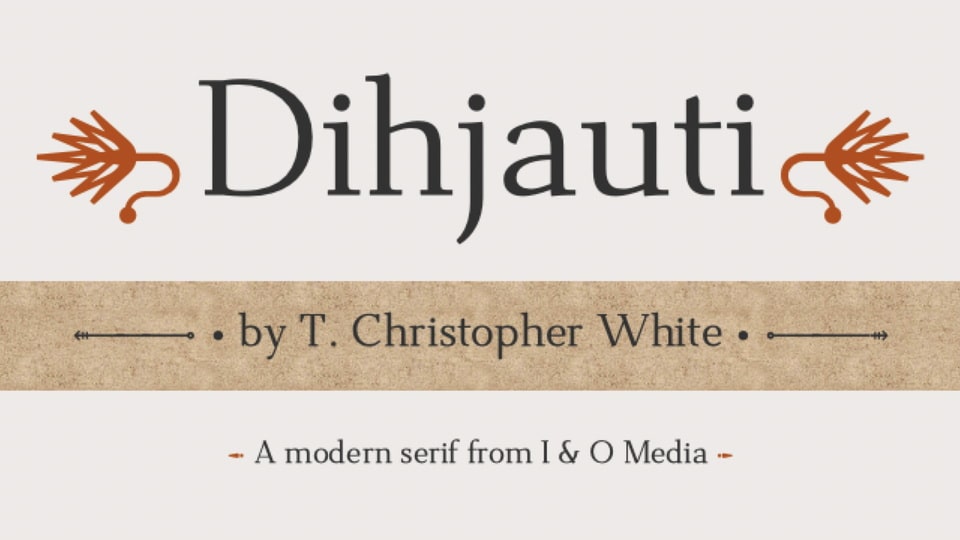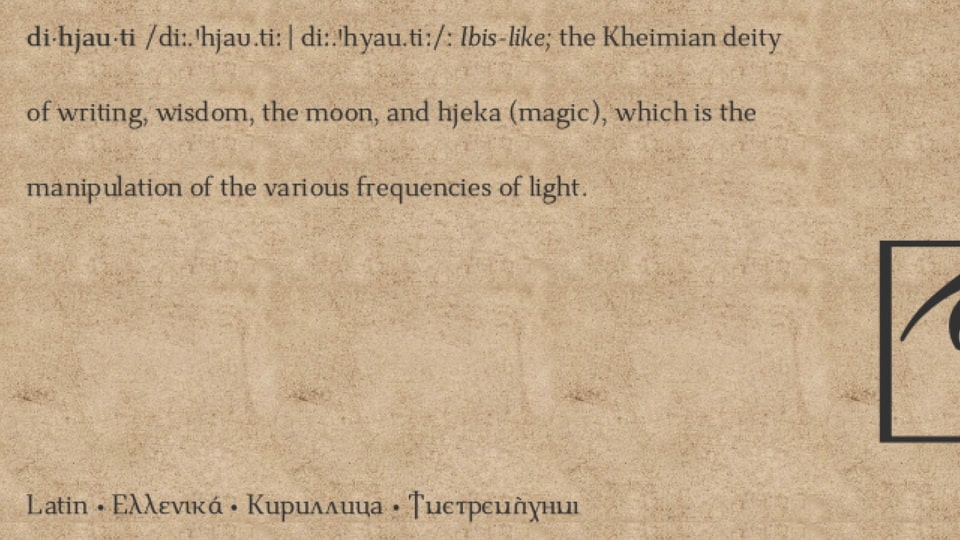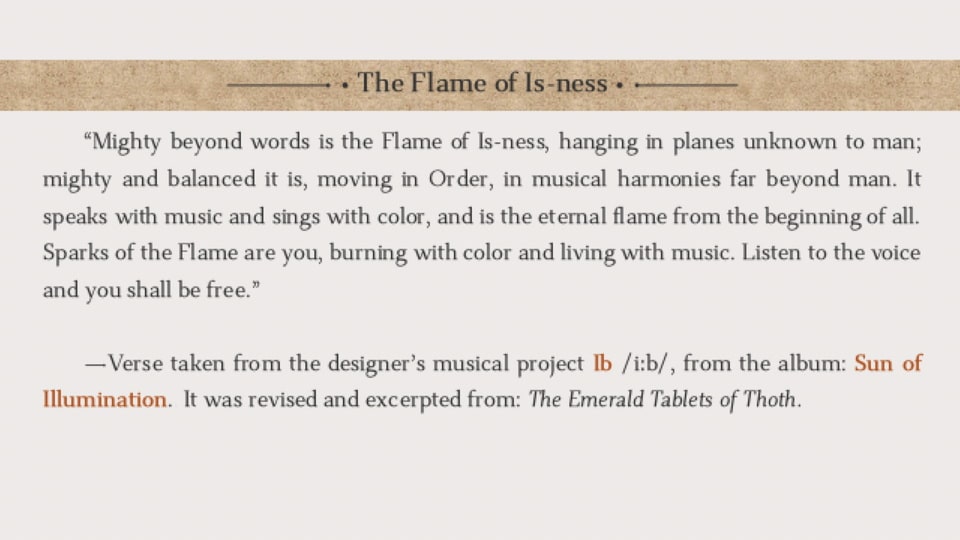
Dihjauti /di:.’hjau.ti: | dee.’hyow.tee/, is predominantly based off Dwiggin’s Electra with shades of Baskerville, Fairfield, and Perpetua. It is modern and stately, and like its inspirers, it has broad counters and spacing, which temper it and give it warmth, making it comfortable and well-suited for longer texts. It is balanced in all aspects, from its punctuation to its reference marks and symbols. Its design takes into consideration all extra characters for languages that few fonts support, such as African and First Nation. These extra characters, such as Edh, Esh, Gamma, Ezh, Yogh, the pharyngeal fricatives, the click consonants (which have added capital versions), the glottal stops, et cetera, actually look like they belong, as opposed to being afterthoughts. The italic incorporates a touch of Arrighi. It includes all transcription systems relevant to the Latin, Cyrillic, and Greek alphabets, as well as standard Coptic, plus extra characters for Teuthonista and First Nation. It also includes, to list a few, Egyptian-styled pictographs (where applicable), APL, a plethora of mathematical symbols and arrows, and a number of alternatives in the PUA.
This is the updated and redrawn version of Dehuti/Dehjuti. After using the font on my kindle, I slowly began adjusting its design, spacing, and kerning, making it even more like Electra, but now with hints of Baskerville, as I realized that I wanted it to be more rounded. The italics, as a result, and which I had always had issues with design-wise, thus became Scotch-styled. Dihjauti S (Scotch) reflects that influence in the capital Q.